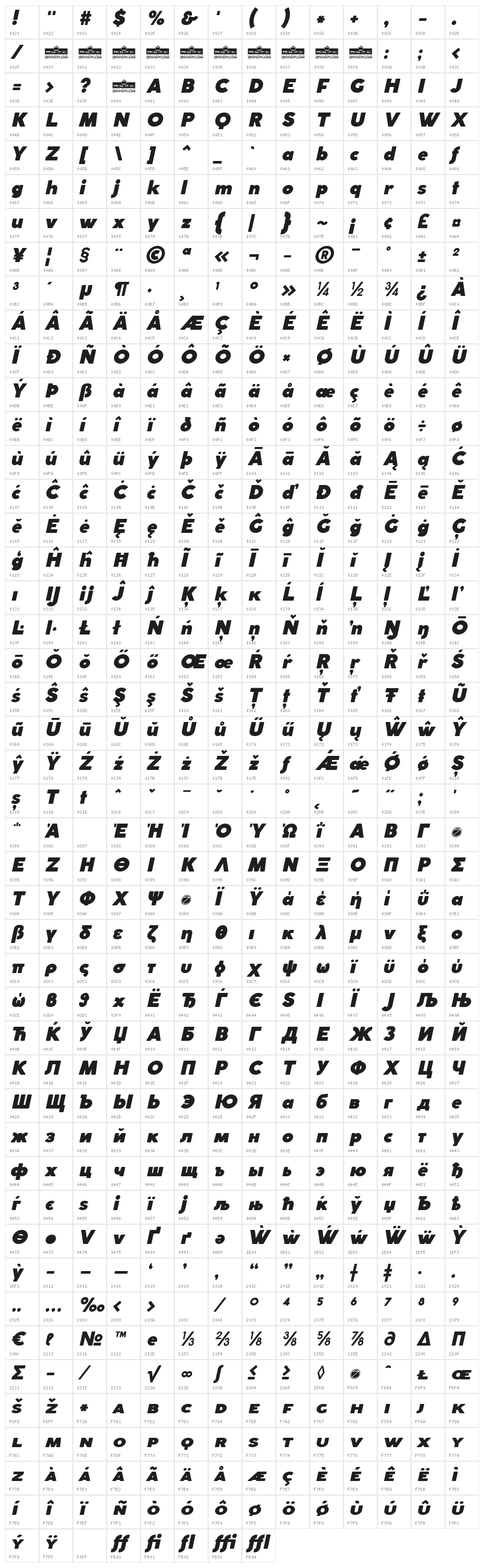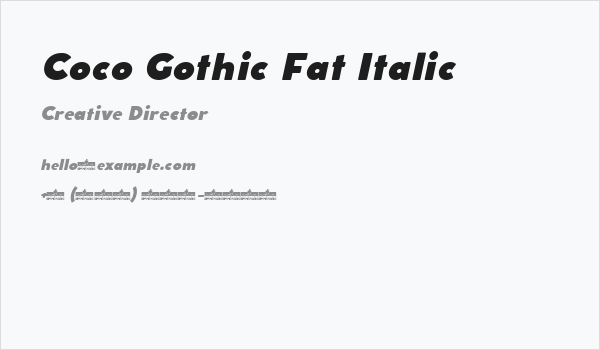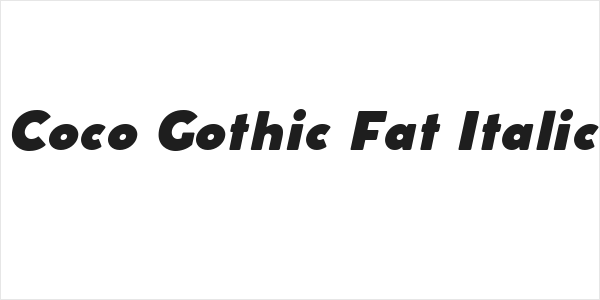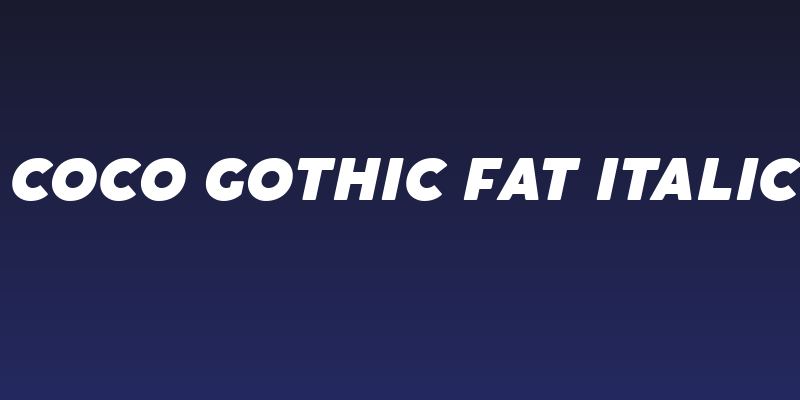
Coco Gothic Fat Italic Font
Coco Gothic Fat Italic Description
This font features a bold and italicized style with a modern and geometric aesthetic. The characters are thick and rounded, providing a strong visual impact. The uppercase and lowercase letters maintain a consistent weight, enhancing readability while adding a contemporary flair. The numbers and special characters are designed to match the boldness of the alphabet, ensuring a cohesive look across all text elements. This font is ideal for making statements with its eye-catching and dynamic appearance.
| Proposed Projects | Ideal for branding, headlines, posters, and digital media where a strong visual presence is required. |